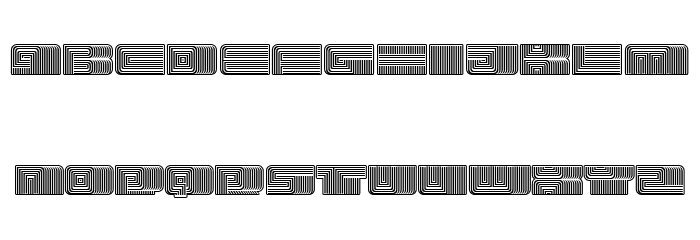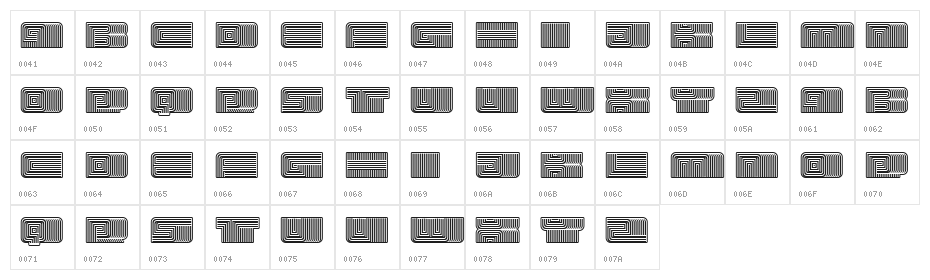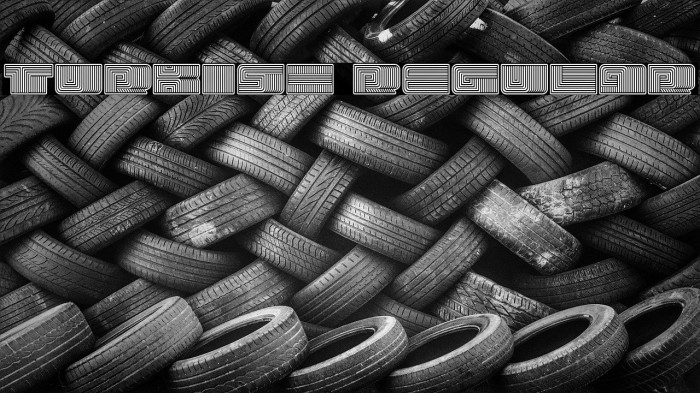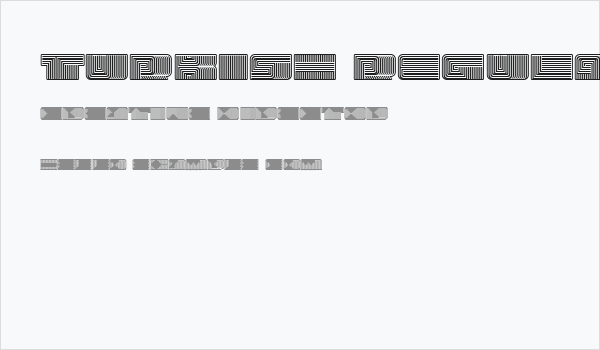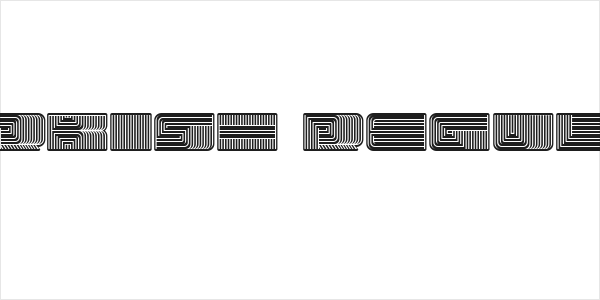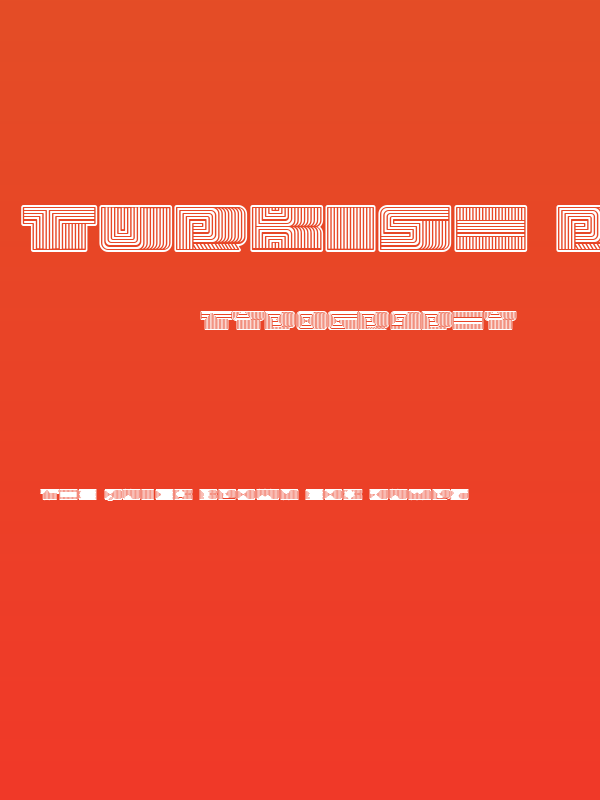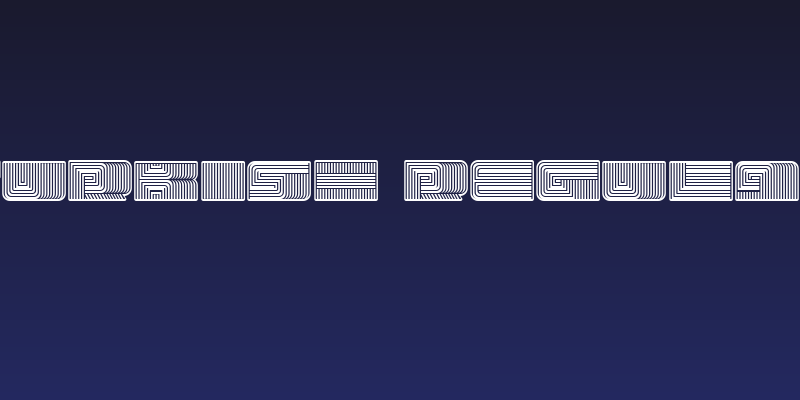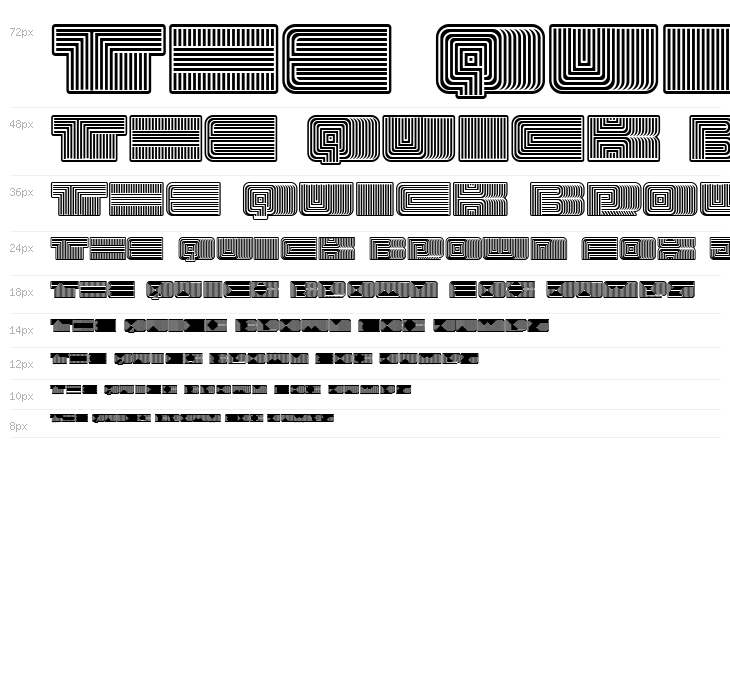
Turkish Regular Font
Turkish Regular Description
This font features a unique, decorative style characterized by multiple parallel lines forming each character, creating a layered, three-dimensional effect. The design is geometric and structured, with each letter maintaining a consistent width and height, giving it a uniform appearance. The intricate line work adds depth and complexity, making it visually striking and ideal for eye-catching designs. The font is highly stylized, with a modern and artistic flair, suitable for creative projects that require a bold and distinctive look.
| Proposed Projects | Ideal for posters, album covers, branding, and any project needing a bold, artistic touch. |